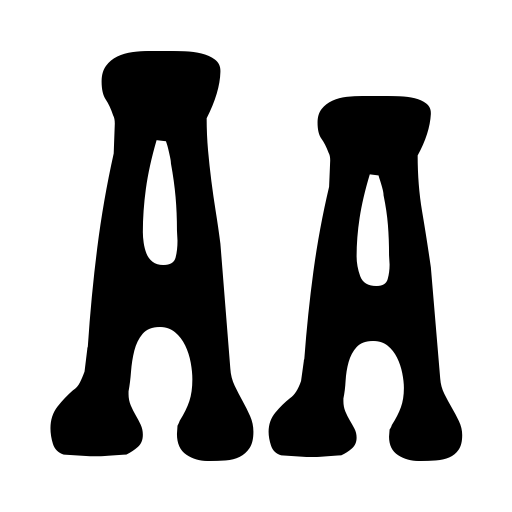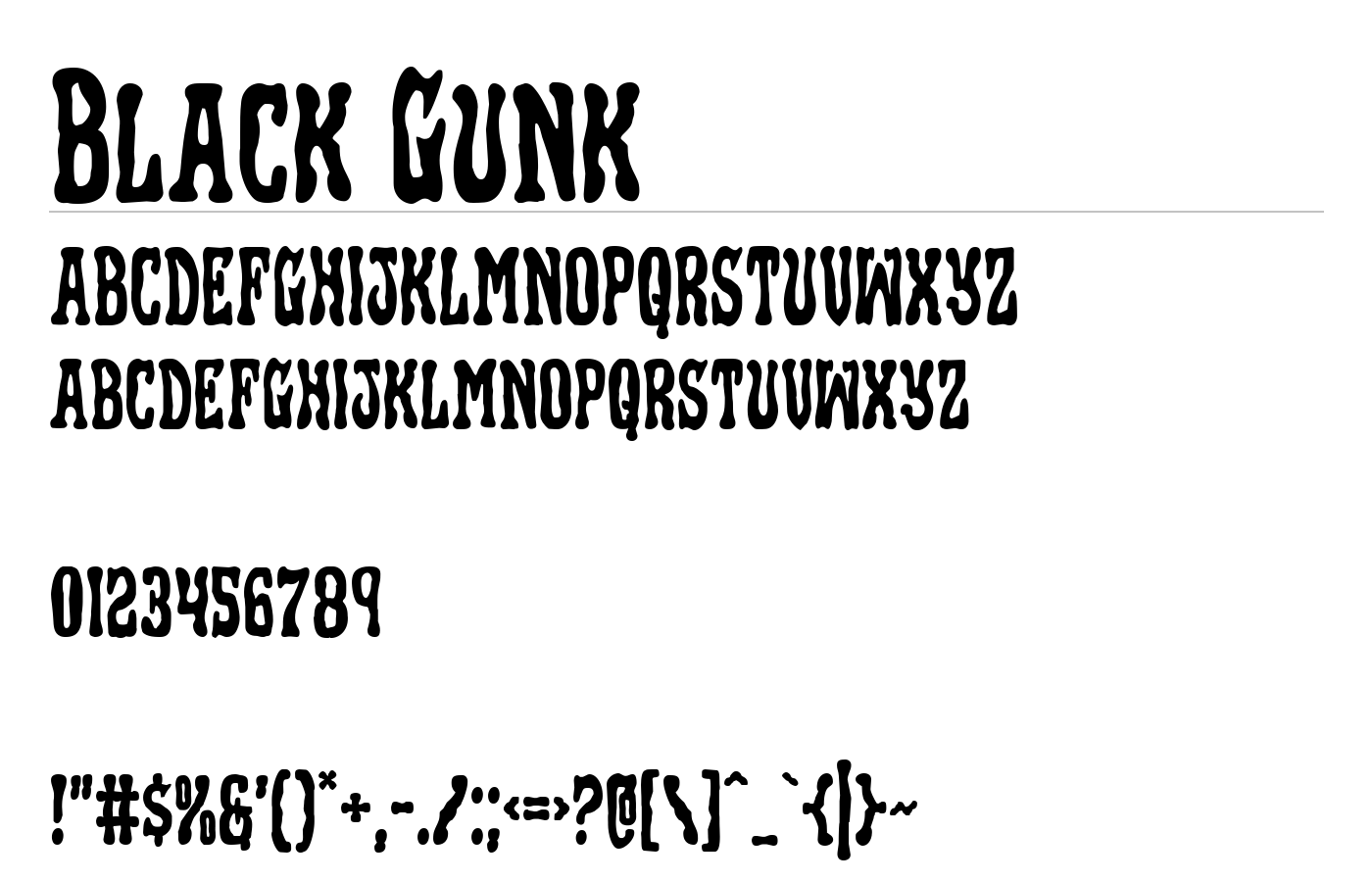
Black Gunk is a bold, condensed serif font with a playful and slightly eerie personality, featuring irregular, organic stroke shapes that evoke a hand-crafted, grungy feel. Its tall x-height and tight letter spacing make it ideal for attention-grabbing headlines, logos, and designs with a vintage or alternative edge. This font works well for creative branding, posters, or editorial projects seeking a distinctive, edgy vibe.
Black Gunk Font
About Black Gunk Font